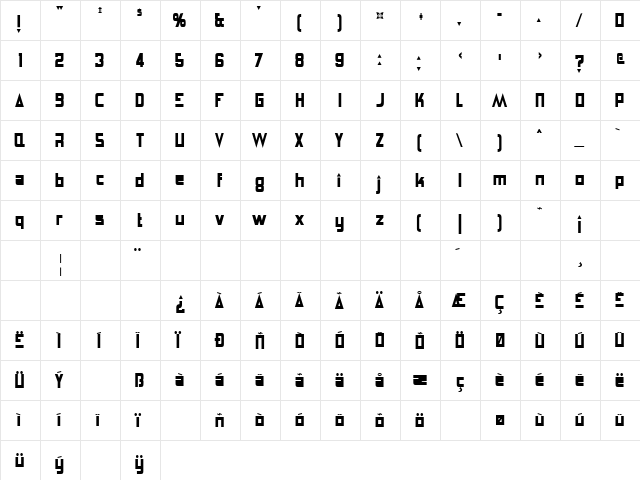
Anglepoise Lampshade Regular
Design Context for Anglepoise Lampshade Typeface
Anglepoise Lampshade offers clean, dependable letterforms without strong stylistic allegiance, making it a practical choice for designers who need flexibility.
Pro Tip: Use Anglepoise Lampshade in both headline and body roles to test its range before committing to a single application.